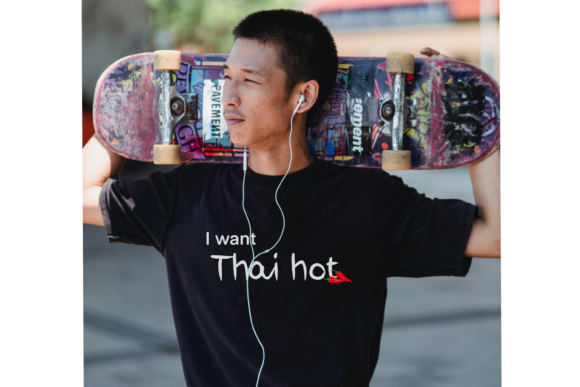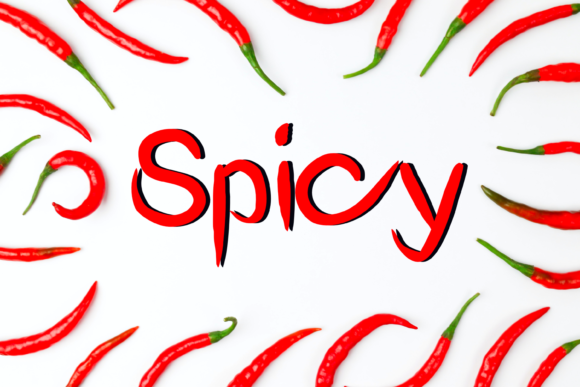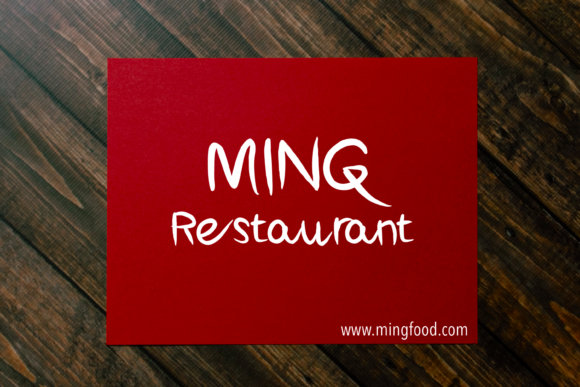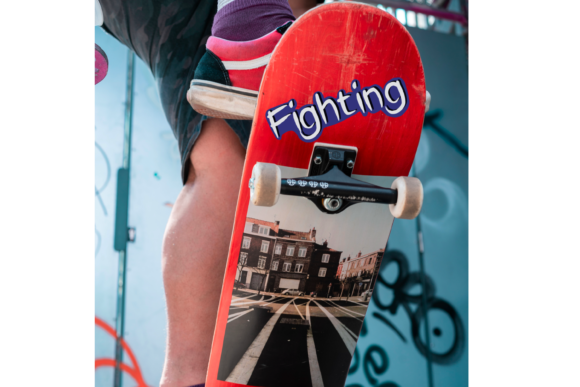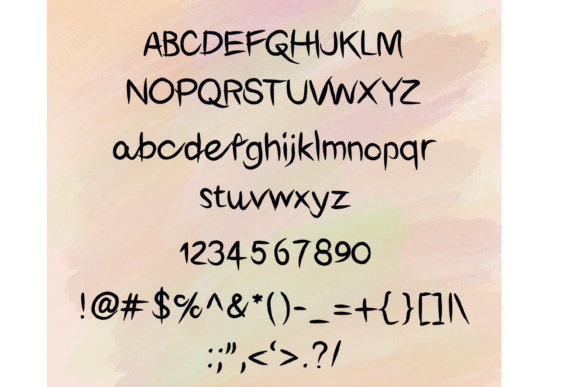
Introduction to Foxtail Font
Foxtail is an Asian-style handwritten font.
It features uniquely shaped characters and a stylish vibe that can enhance the look of any creative project .
Key Features of Foxtail Font
Why Choose Foxtail Font?